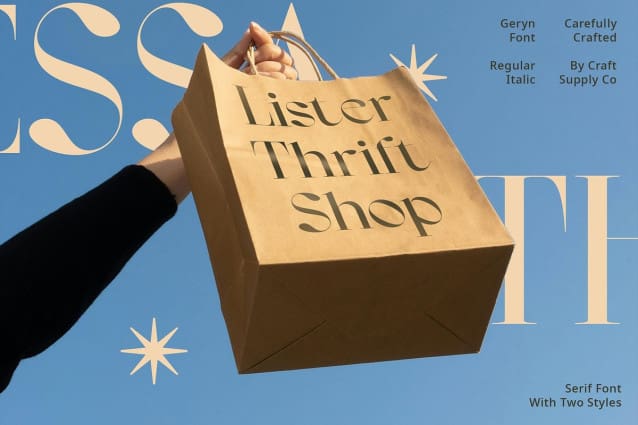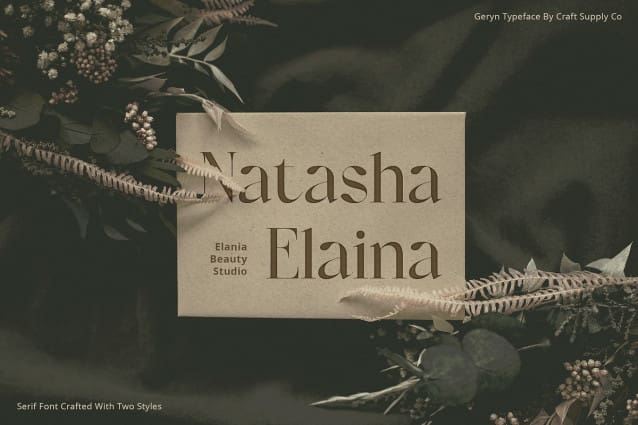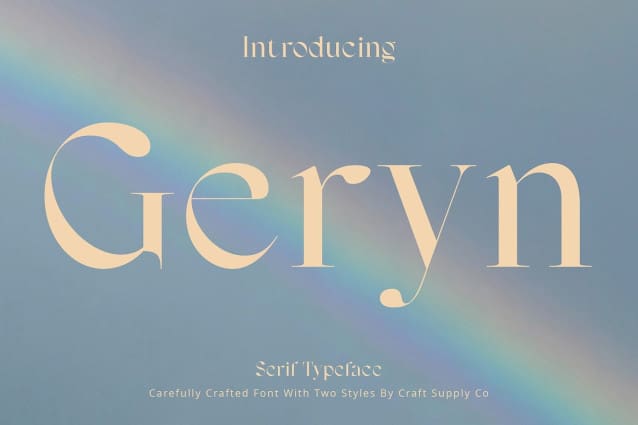
Geryn Font
Geryn Font: Elevating Elegant in Serif Typography. Sophisticated Elegance in Every Curve Geryn Font exudes sophistication with its elegant serif design. The high contrast between thick and thin strokes adds depth and refinement to each character.
Versatile for Display and Formal Use Perfect for both display and formal applications, This font strikes a balance between elegance and functionality. Its timeless appeal makes it suitable for corporate branding, elegant invitations, and refined editorial layouts.
Captivating Contrast for Impactful Displays With its high contrast design, This font commands attention and creates impactful displays. Each character stands out boldly, ensuring clarity and readability even in large formats.
Elevate Your Design with Geryn Elevate your design projects with This font elegant serif typography. Whether you’re crafting a formal document or designing a striking poster, Geryn Font adds a touch of sophistication and class to any project.
Timeless Elegance for Every Occasion This font offers elegant serif typography with high contrast, perfect for both formal and display purposes. Its timeless design elevates any project, adding sophistication and refinement to every detail.